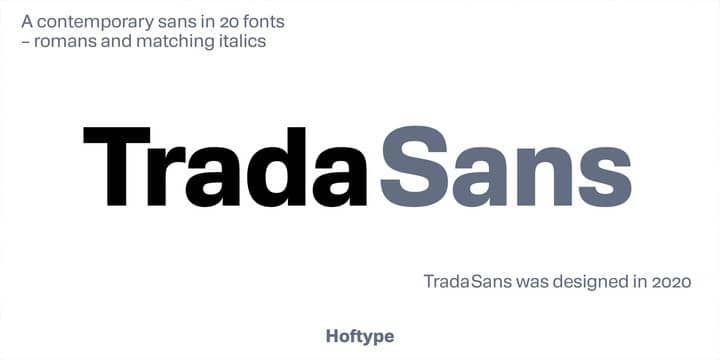
TradaSans is a new addition in the range of Univers and Helvetica. It represents a fresh face in this ongoing strong category of sans serif typefaces.
TradaSans slightly squarish tendency, and its technical and neutral look create an objective and factual appearance.
TradaSans is an ideal typeface for universal use. It offers high reading qualities with longer text applications and its sophisticated design details make it a distinctive headline typeface.
- Designer: Dieter Hofrichter